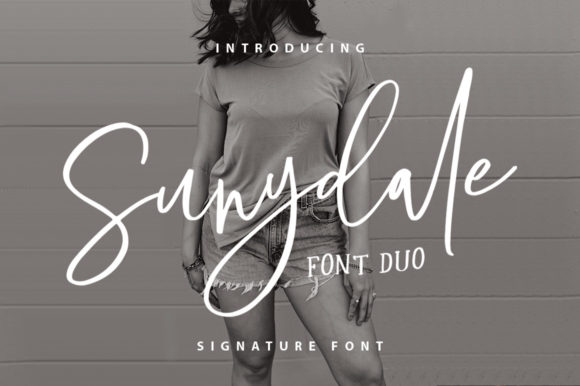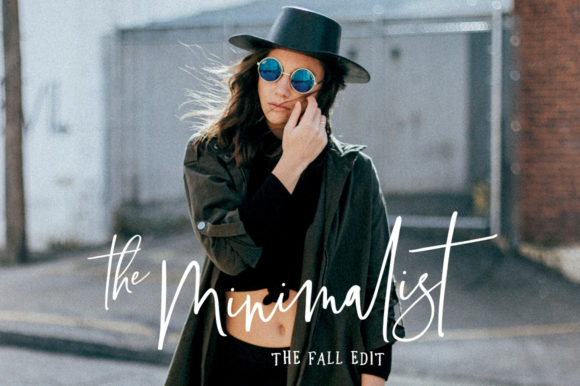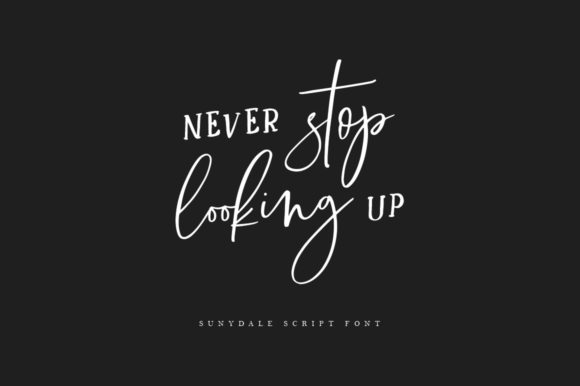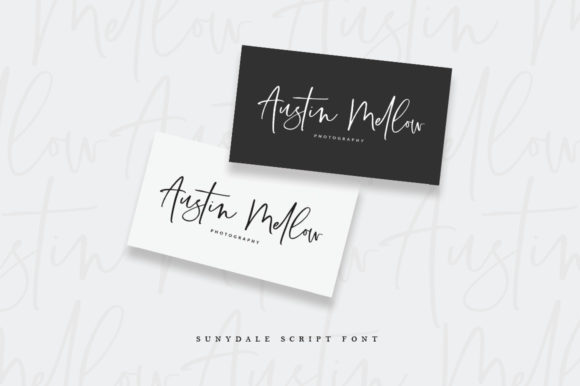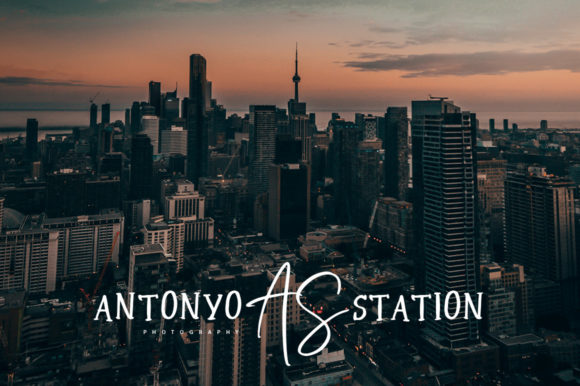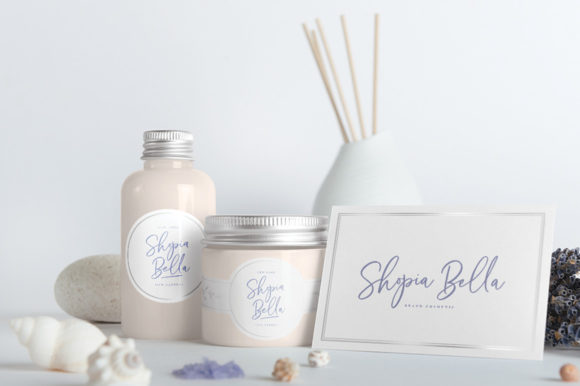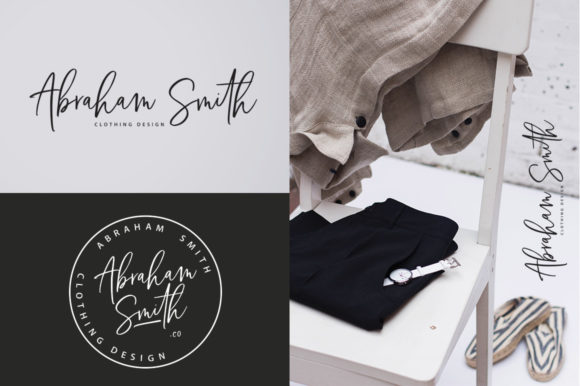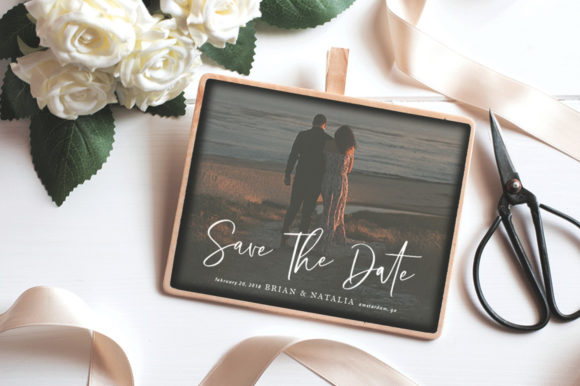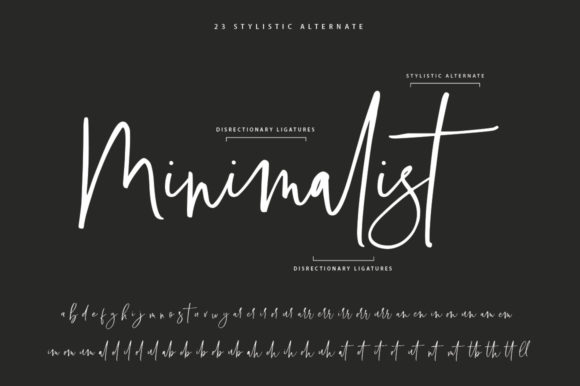
Sunydale Font
About Sunydale Font
Sunydale is a match made in heaven duo font. Its timeless handwritten font combined with the fresh serif makes this font incredibly unique and fitting to a wide variety of designs. The only limit is your imagination!